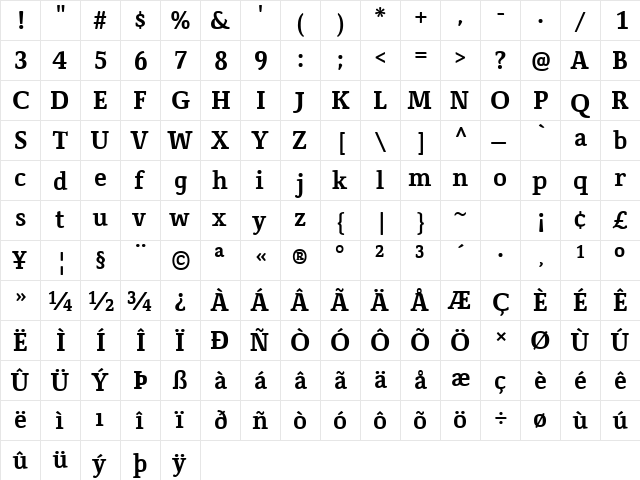
Corzinair Bold
Design Context for Corzinair Typeface
Corzinair offers clean, dependable letterforms without strong stylistic allegiance, making it a practical choice for designers who need flexibility. The heavy weight commands attention and anchors typographic hierarchies.